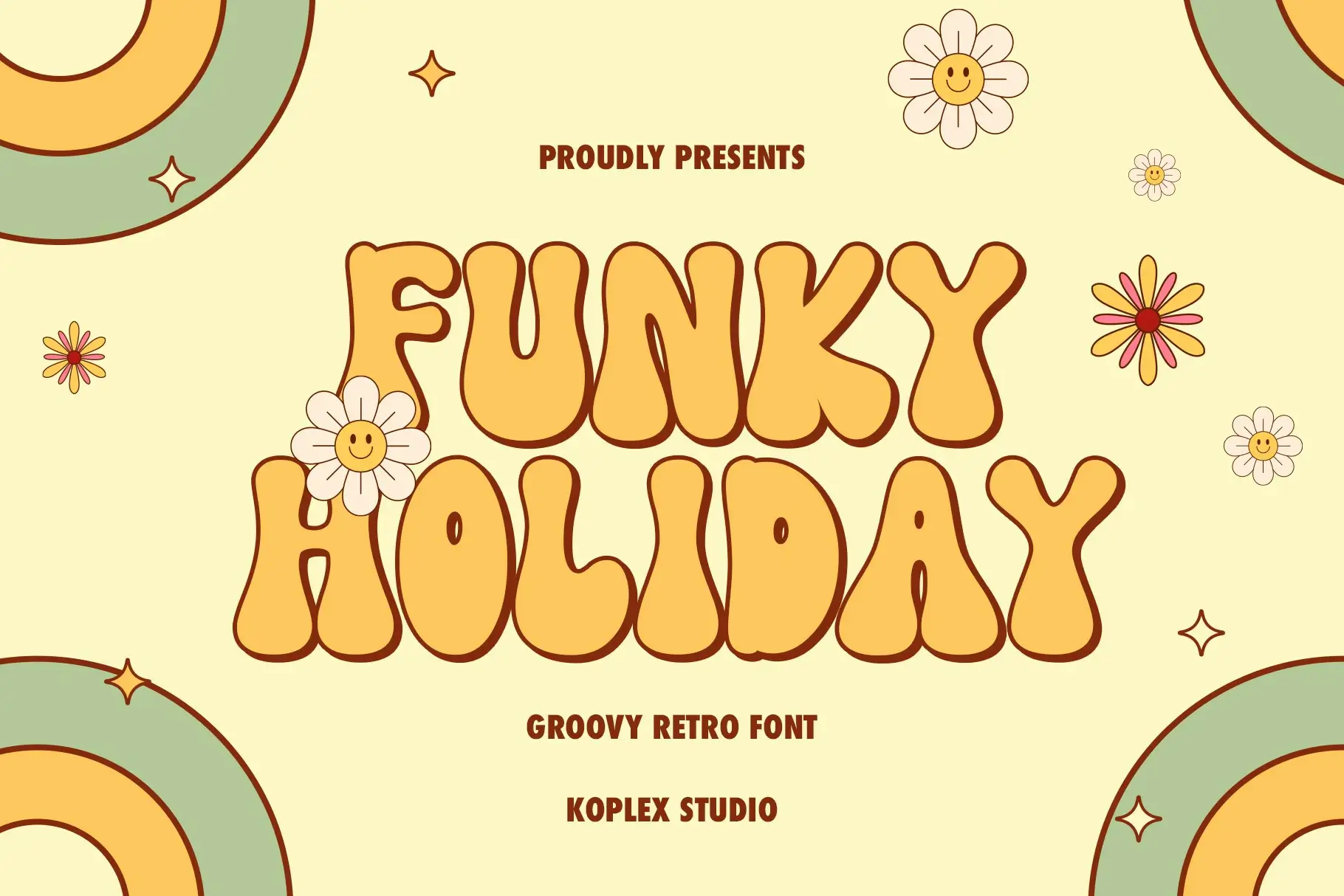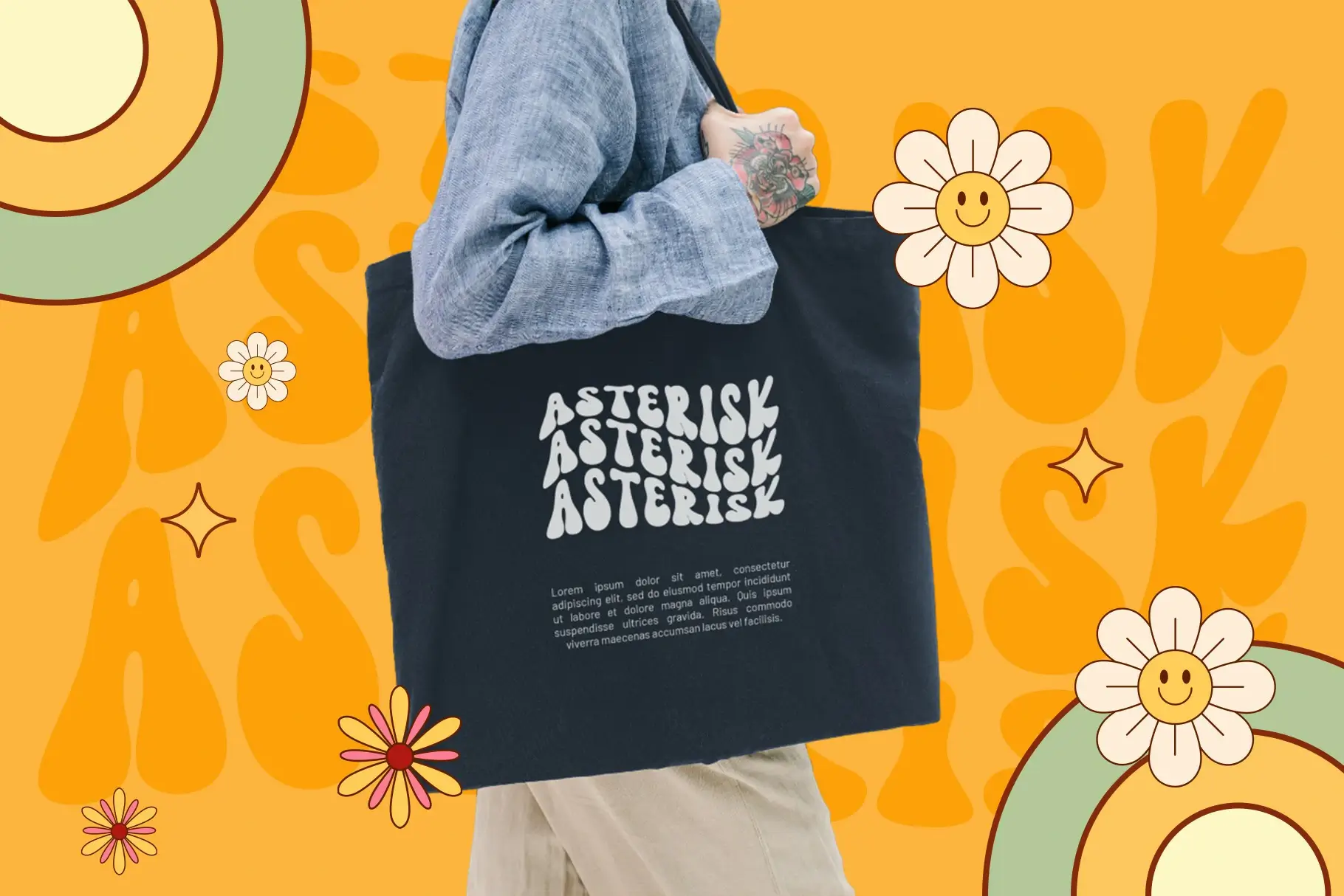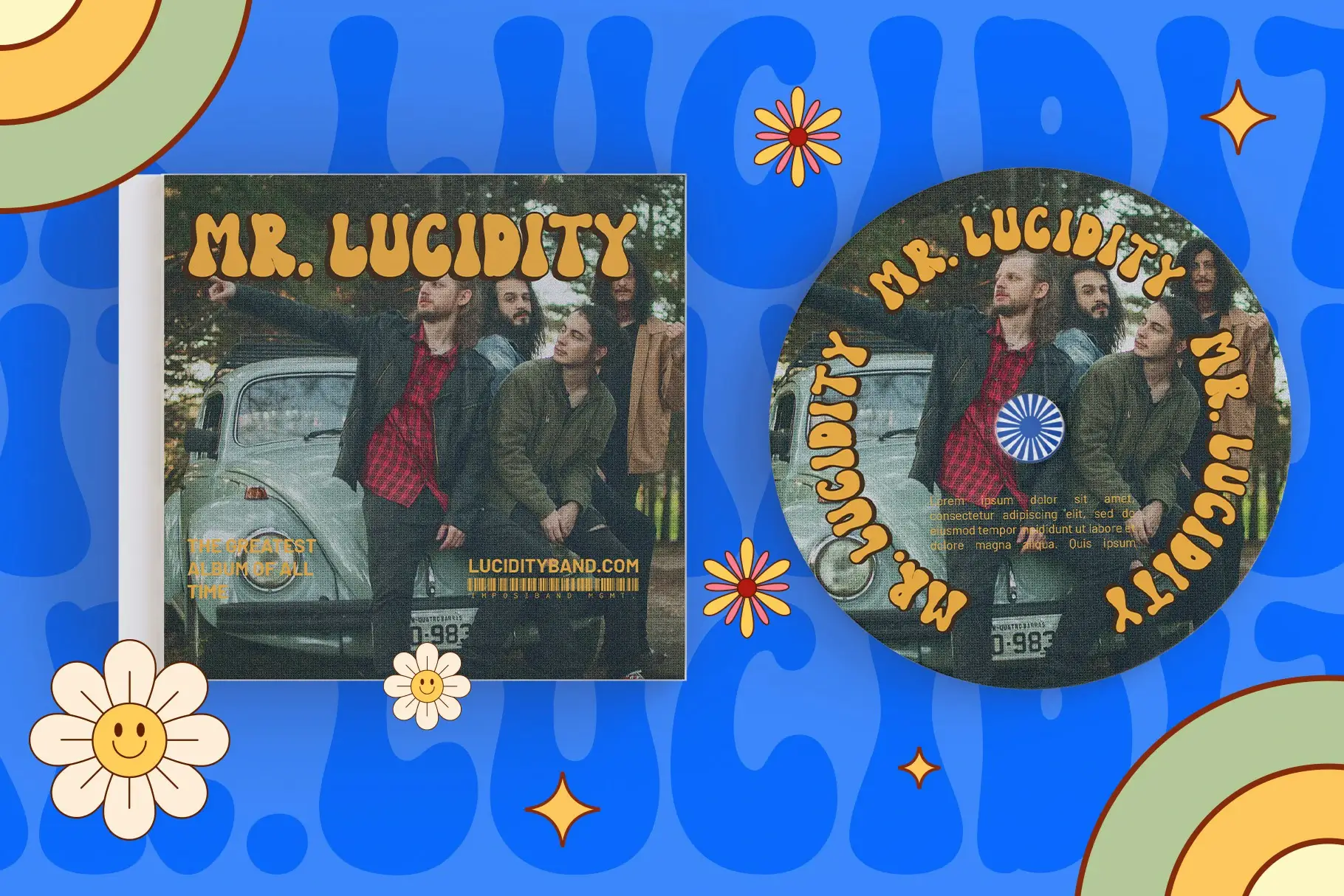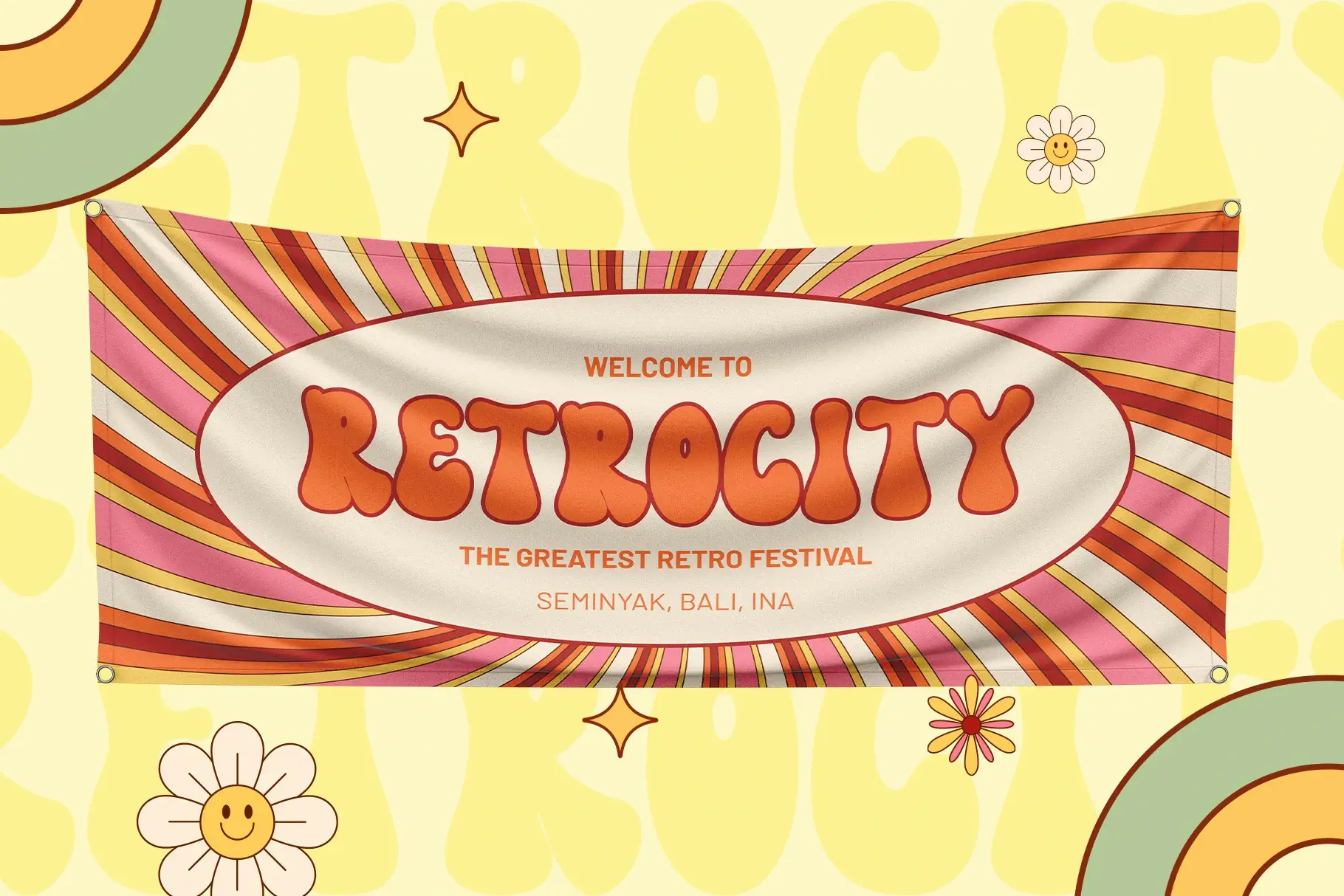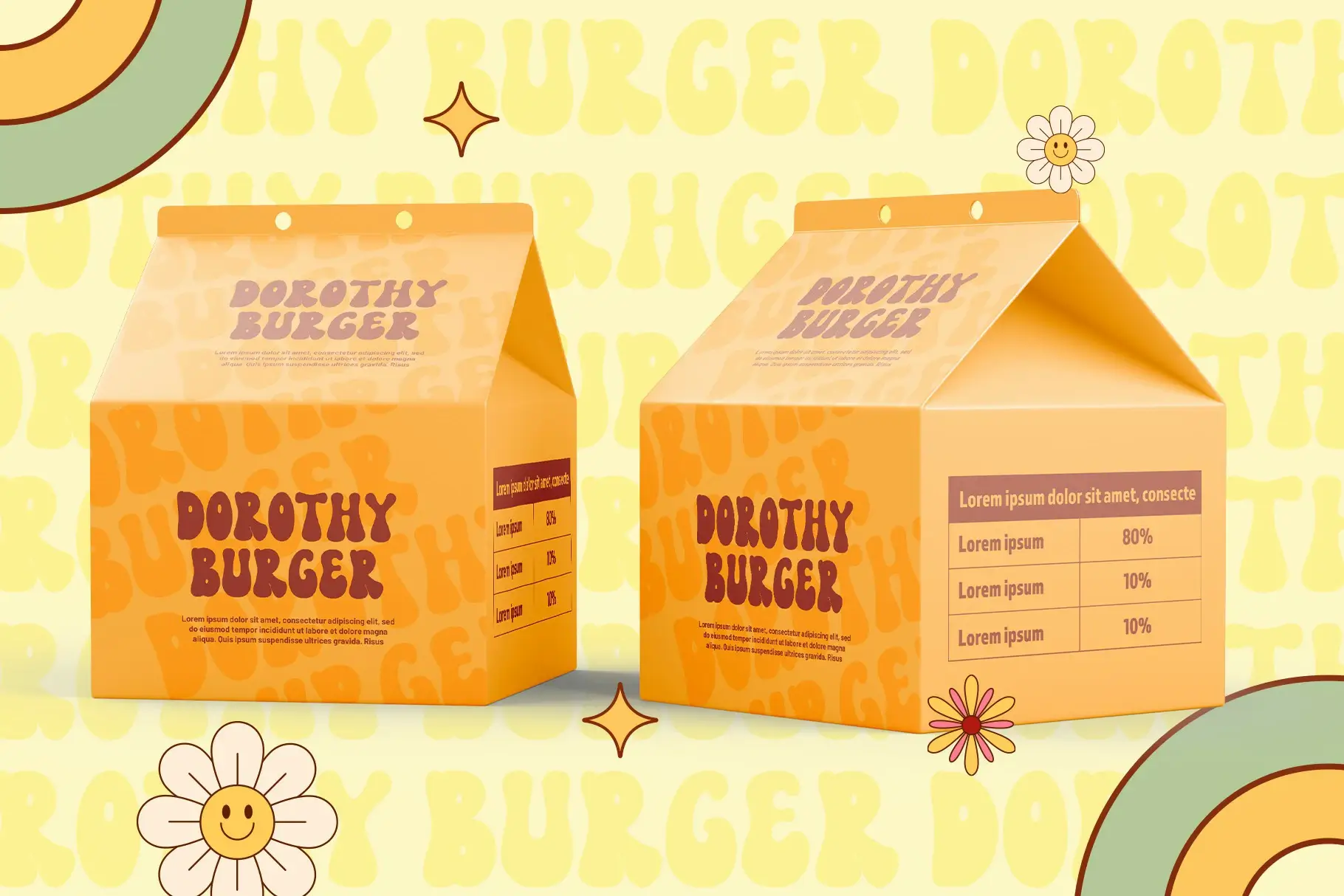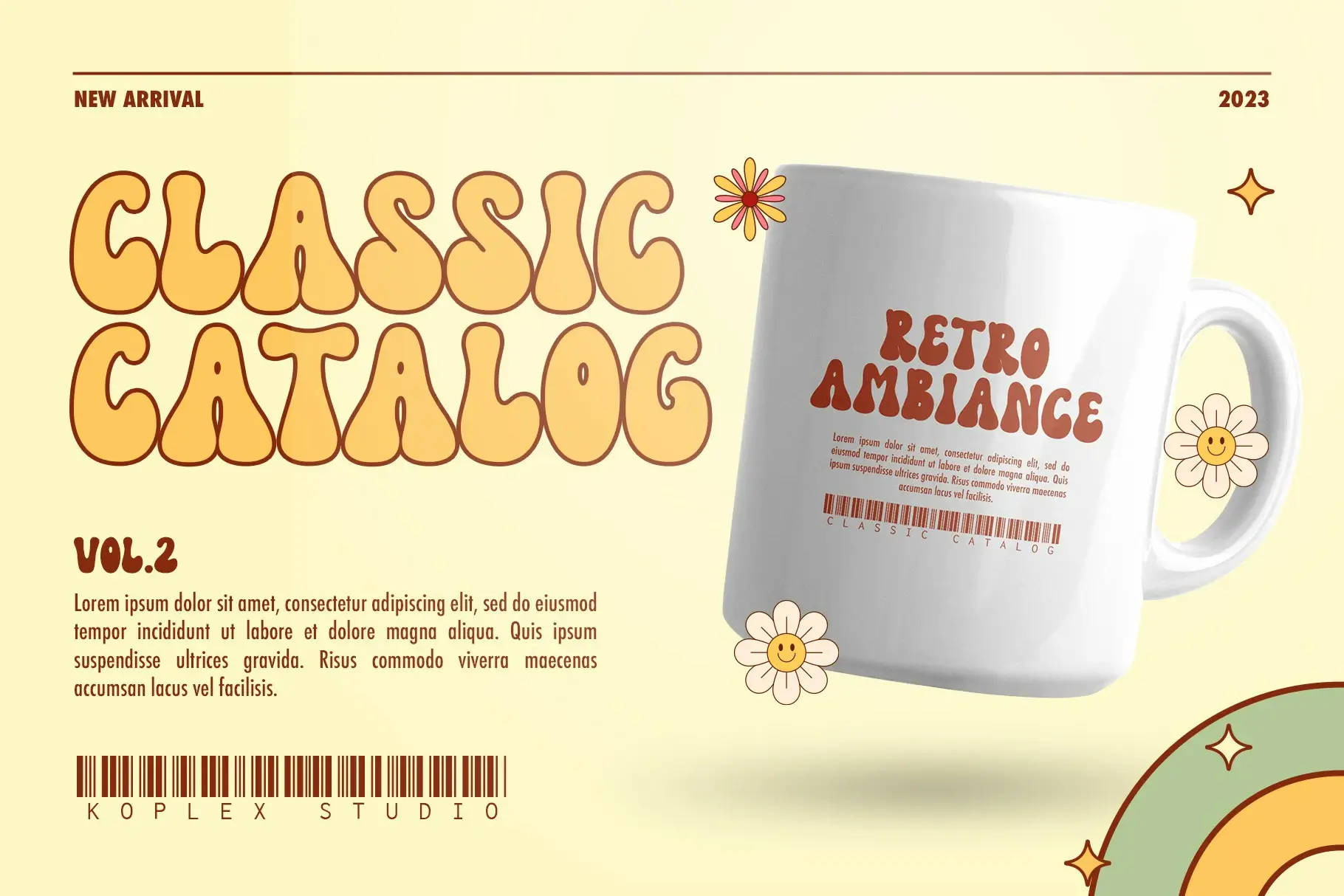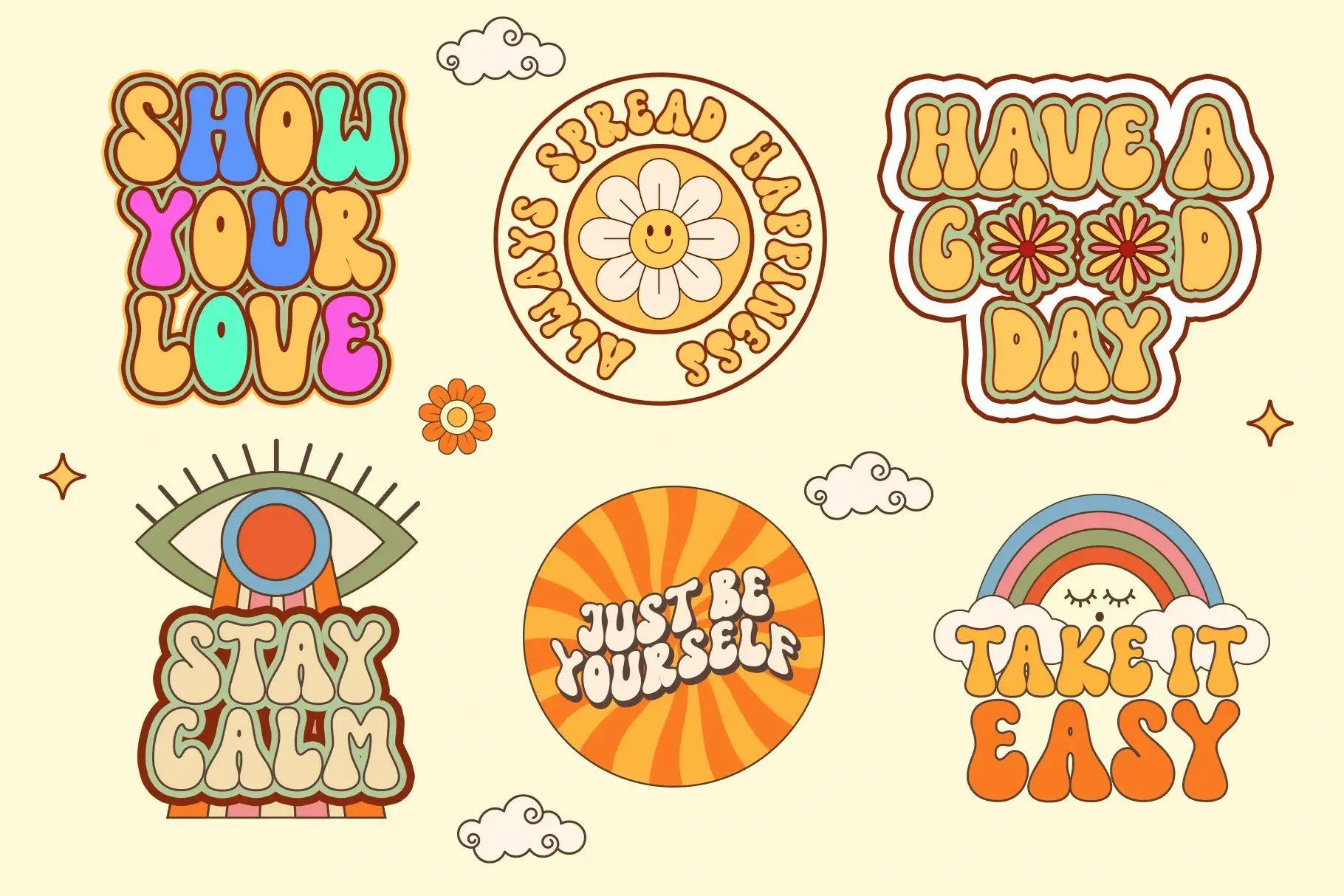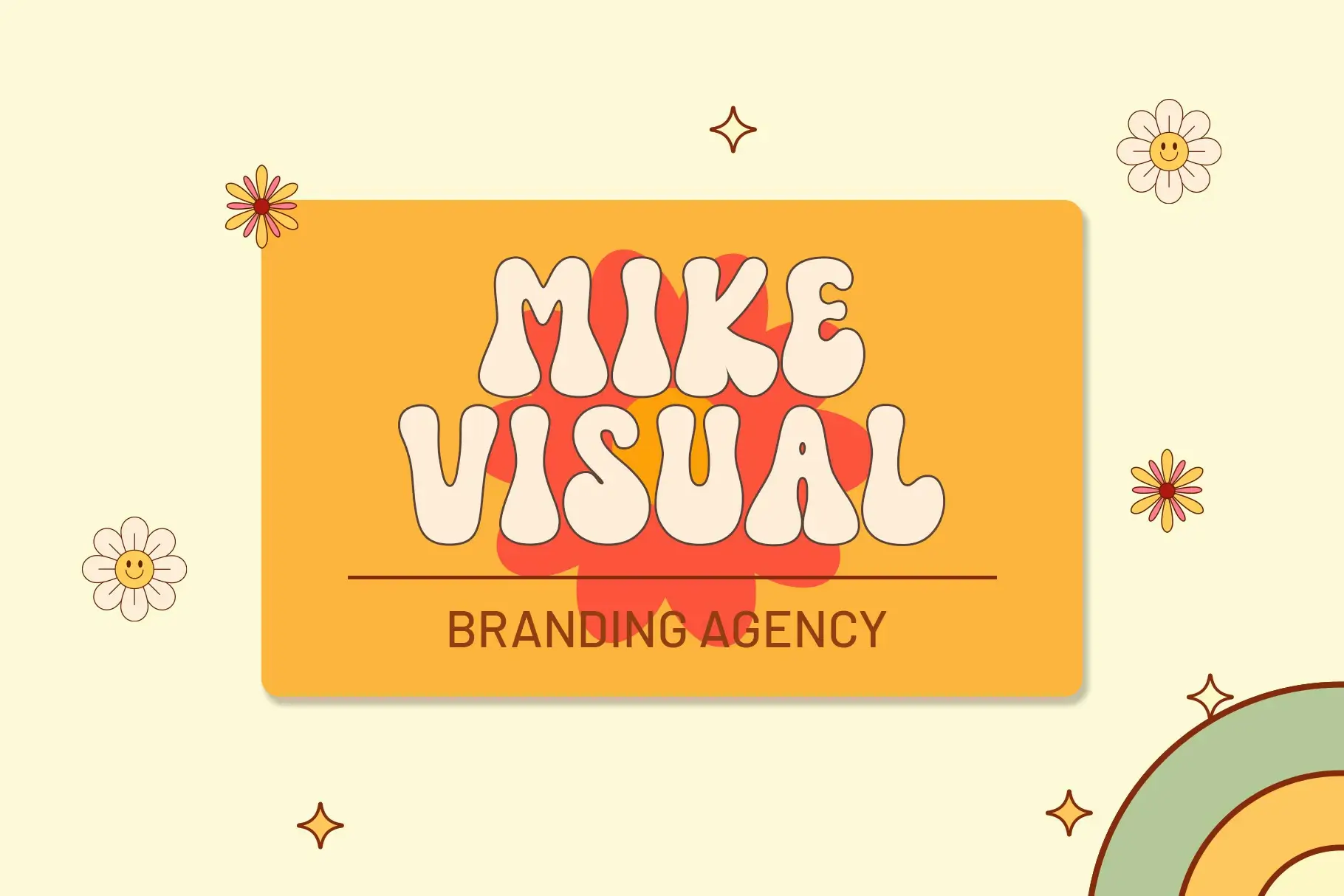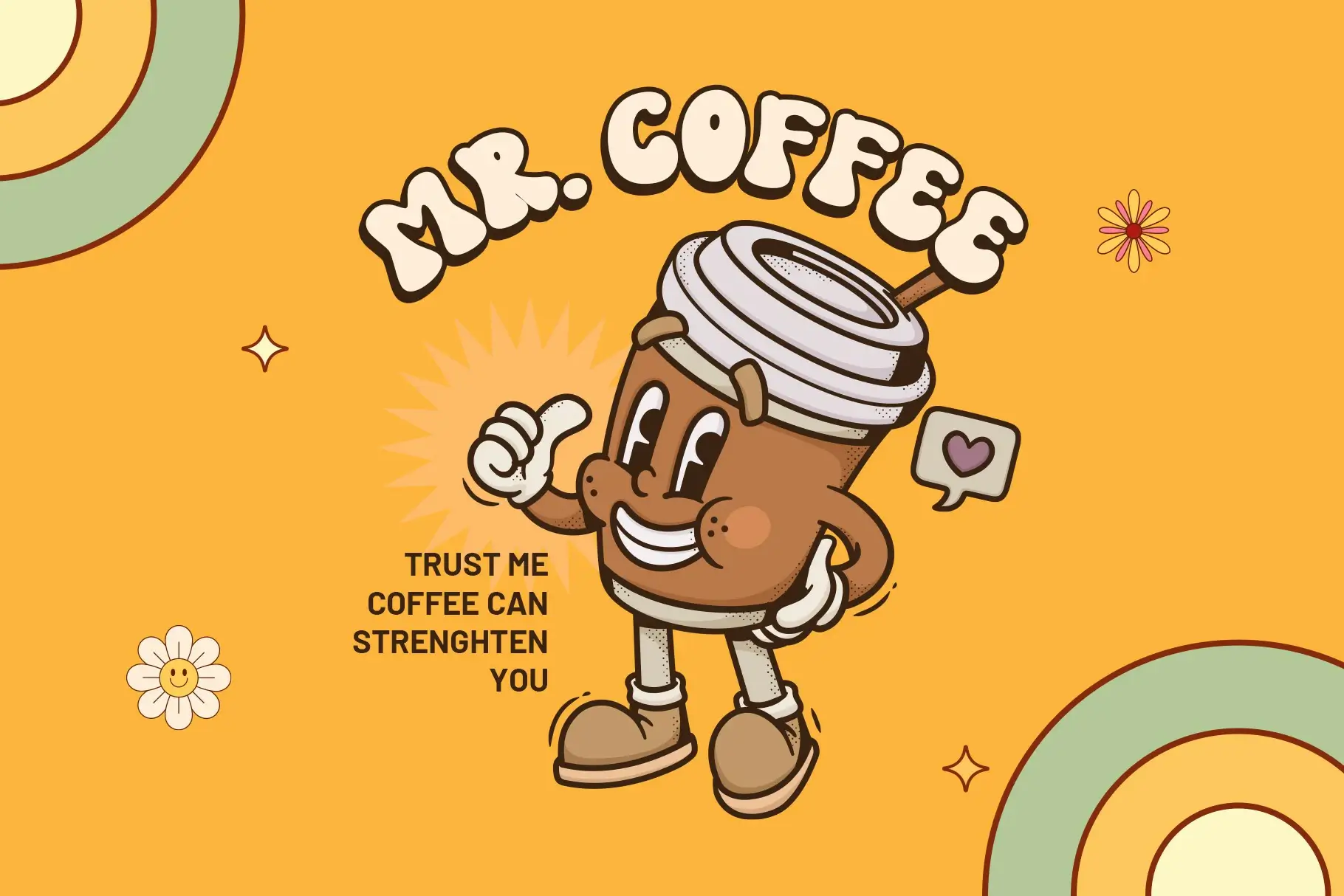
Funky Holiday Font
Funky Holiday Font is a fun and vibrant groovy font that brings the retro spirit of the 60s and 70s to life. With bold, bubbly shapes and smooth curves, this retro font is perfect for posters, t-shirts, stickers, logos, and vintage-themed branding. Its cheerful, hand-drawn look captures a nostalgic vibe while staying fresh and modern. Ideal for creatives who want their designs to stand out, Funky Holiday adds charm, color, and personality to any project. Whether you’re designing for digital or print, this bubble font delivers a feel-good, eye-catching style that everyone will remember.
Funky Holiday Font – A Groovy, Retro, Bubble-Inspired Typeface Full of Positive Vibes
Funky Holiday Font. Step into a vibrant world of nostalgia, sunshine, and good vibes with Funky Holiday Font, a playful and bold groovy font inspired by the funky spirit of the 60s and 70s. Designed to bring back the peace, love, and psychedelic flair of the retro era, Funky Holiday is your go-to retro font for projects that need personality, flair, and a whole lot of fun.
Whether you’re designing a t-shirt, poster, sticker, logo, album cover, or branding for a vintage-themed product, Funky Holiday Font delivers instant charm and energy. Every letter radiates joy with its plump, rounded edges and bubbly aesthetic — making it the perfect choice for any creative who wants to stand out with a bubble font that truly grooves.
Groovy Vibes in Every Letter
Funky Holiday isn’t just a font—it’s a visual throwback to carefree summers, VW vans, flower power, and bell-bottoms. Each character is meticulously hand-drawn to emulate the authentic 70s bubble lettering style, but with modern polish. The soft, exaggerated curves and thick lines evoke an irresistible retro vibe, ideal for headlines and display text that need to shout fun.
The font features both uppercase and lowercase letters, punctuation, numbers, and multilingual support—giving you full versatility to express yourself creatively.
Why Choose Funky Holiday Font?
✅ Authentic Groovy Style
From the moment you type your first word, Funky Holiday Font transports you to a groovy time where disco, sunshine, and freedom reigned. It’s perfect for mood boards, editorial layouts, party invitations, kids’ books, and more.
✅ High Versatility
Use it on digital or print platforms with ease. From Instagram posts and product packaging to music artwork and branding assets, Funky Holiday fits right in anywhere a retro aesthetic is needed.
✅ Perfect Bubble Font for Bold Designs
The bubbly, thick strokes make it a fantastic bubble font for high-impact designs. Funky Holiday commands attention without being too serious—just like your favorite summer memory.
✅ Retro Meets Modern Usability
Funky Holiday Font Perfect For:
• Festival Posters & Merch
• Coffee Shop Branding
• Vintage Apparel
• Kids’ Book Covers
• Band Logos & Album Covers
• Instagram & TikTok Content Creators
• Retro Packaging Design
• Motivational Stickers & Quotes
• Uppercase & Lowercase Letters
• Numerals & Punctuation
• Multilingual Support
Bring Back the Retro Fun
Whether you’re a designer chasing the groovy wave or a brand wanting to spark a joyful, nostalgic reaction, Funky Holiday Font gives your message a bright, bouncy, unforgettable personality. This is more than just a groovy font—it’s a trip back to the golden days of design, where color, curves, and charisma ruled the creative world.
Add some flower power to your next project and let the good vibes roll with Funky Holiday Font.